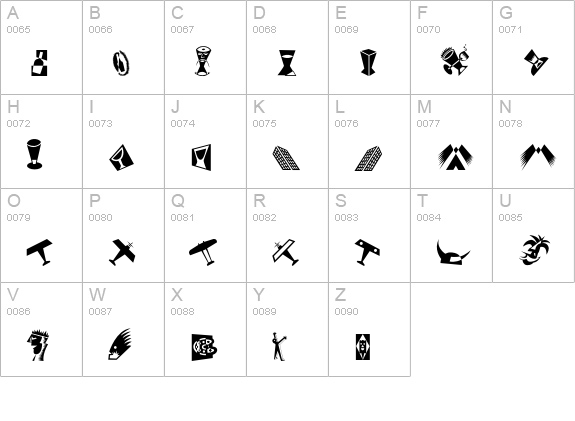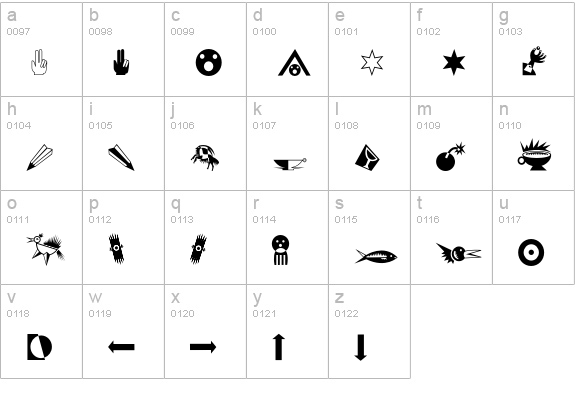
IlFuturismo-Extras Font Details
IlFuturismo-Extras is a captivating and versatile font that adds a touch of futuristic elegance to any design project. With its unique and innovative letterforms, this font is perfect for creating eye-catching headlines, logos, posters, and more. Featuring a wide range of extra glyphs and decorative elements, IlFuturismo-Extras allows you to easily customize and embellish your designs with intricate flourishes, ornaments, and borders. Whether you're looking to create a vintage-inspired design or a modern and sleek composition, this font has the flexibility to meet your creative needs. What sets IlFuturismo-Extras apart is not only its stunning aesthetics but also its accessibility. This font is freely available to download at FontsMarket.com, allowing designers of all levels to access and incorporate it into their projects without any restrictions. The freedom to use this font without any limitations empowers designers to truly unleash their creativity and explore new possibilities. IlFuturismo-Extras is designed with meticulous attention to detail, ensuring that every character is crafted with precision and elegance. Its clean lines and balanced proportions make it easy to read, while its unique and artistic elements add a touch of sophistication. Whether you're designing for print or digital media, this font is sure to make a lasting impression. With its extensive character set and various stylistic alternatives, IlFuturismo-Extras offers endless possibilities for customization and experimentation. Take your designs to the next level by incorporating this font, and watch as your creations come to life with a touch of modernity and flair. Download IlFuturismo-Extras for free at FontsMarket.com and unlock the potential of this extraordinary font. Elevate your design projects with its futuristic charm and explore a world of creative possibilities.